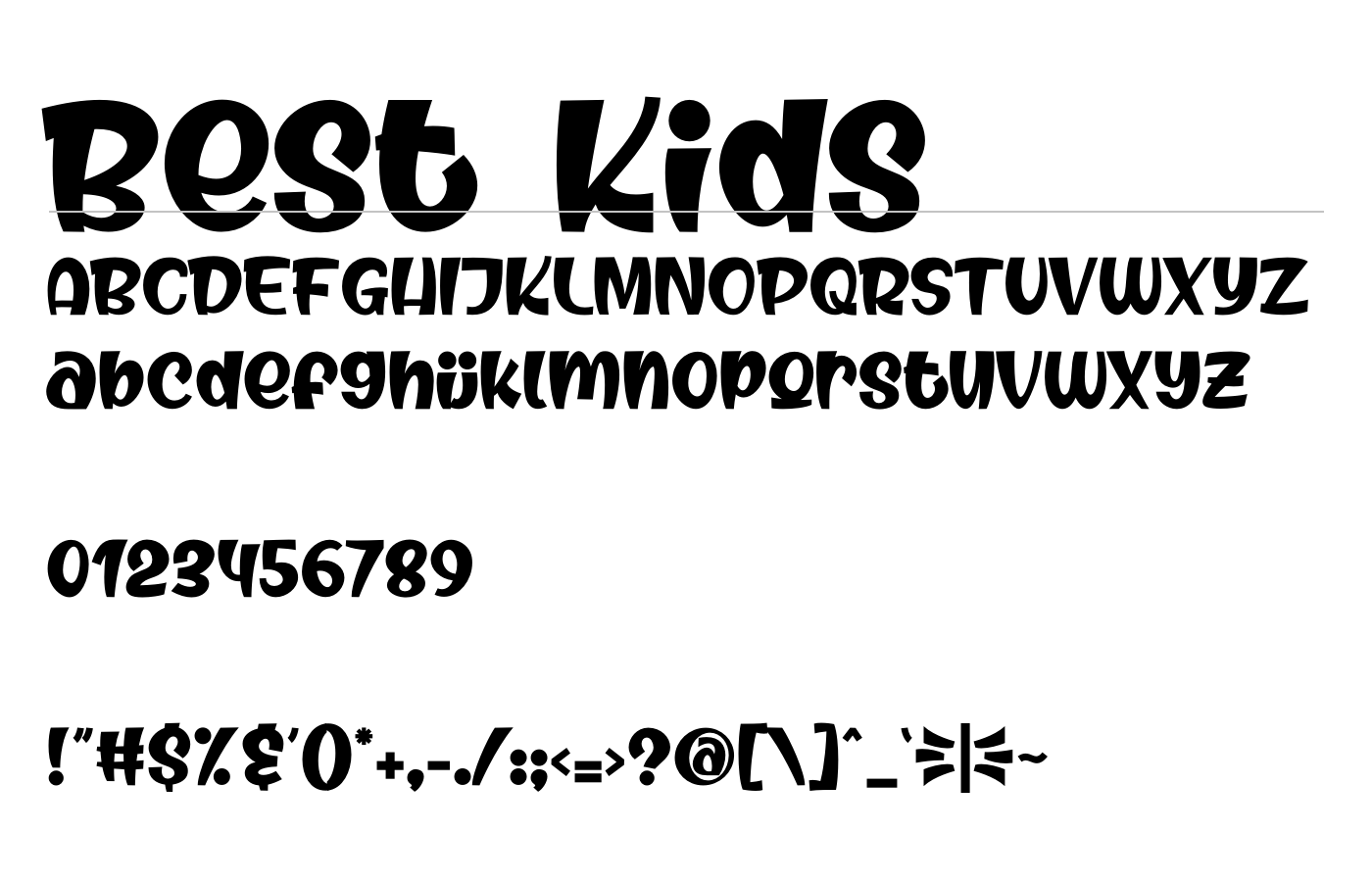
Best Kids Font is a playful, bold sans serif typeface with quirky, uneven letterforms that convey a fun and energetic vibe. Its thick strokes and rounded edges make it highly readable and perfect for children’s content, branding, and playful designs. This font works best in headlines, posters, and packaging where a friendly, approachable atmosphere is desired.
Best Kids Font
About Best Kids Font
| Designer | Awan Senja Team |